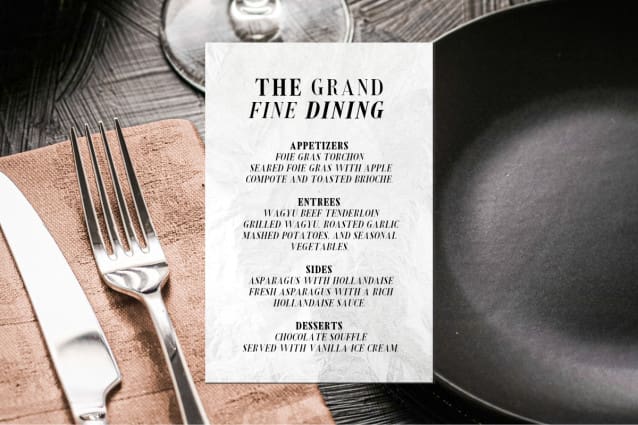
Shorelot Font
Shorelot Font, a timeless serif font designed to captivate. Crafted as an all-caps typeface, Shorelot combines classic sophistication with modern versatility, making it ideal for designers aiming to elevate their work.